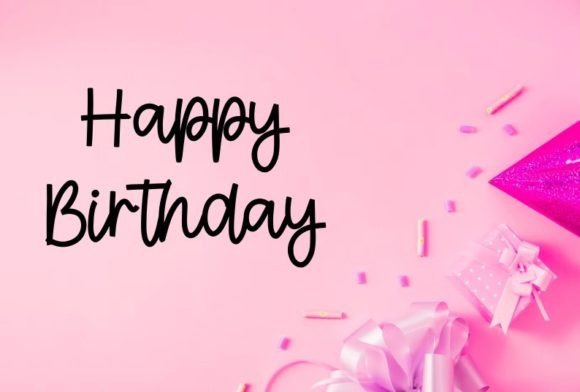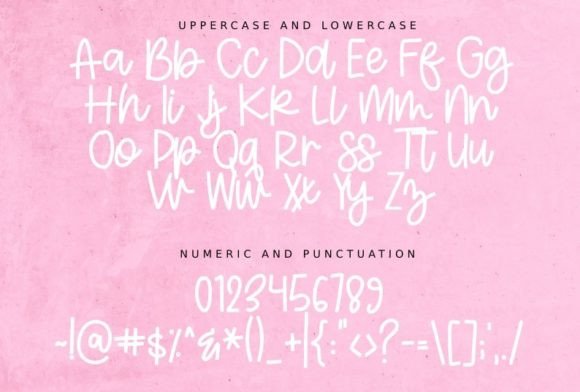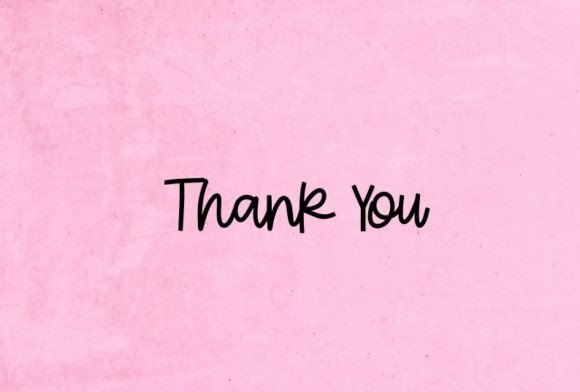
Introducing Farmhouse Display Font: Elevate Your Designs with Elegance
Are you on the hunt for a font that adds a touch of sophistication and charm to your projects? Look no further than Farmhouse Display Font, a stunning handwritten font that is sure to capture your heart. With its elegant touch and timeless style, this font is perfect for designers and crafters looking to create spectacular designs that stand out from the crowd.
The Beauty of Farmhouse Display Font
Farmhouse Display Font is a neat and beautiful handwritten font that boasts an incredibly distinct style. Its elegant touch is perfect for adding a touch of sophistication to a wide range of projects, from wedding invitations and branding materials to social media graphics and more. The font’s classic and timeless design ensures that it will never go out of style, making it a valuable addition to any designer’s toolkit.
What Makes Farmhouse Display Font So Special?
So, what sets Farmhouse Display Font apart from other fonts on the market? Here are just a few reasons why designers and crafters are falling in love with this beautiful font:
- Elegant and Refined: Farmhouse Display Font features an elegant and refined design that is perfect for creating sophisticated and eye-catching designs.
- Timeless Style: The font’s classic design ensures that it will never go out of style, making it a valuable investment for designers and crafters.
- Versatile: Farmhouse Display Font is incredibly versatile, making it perfect for use in a wide range of projects, from wedding invitations and branding materials to social media graphics and more.
- Easy to Read: Despite its elegant design, Farmhouse Display Font is incredibly easy to read, making it perfect for use in both digital and print materials.
How to Use Farmhouse Display Font in Your Designs
Ready to fall in love with Farmhouse Display Font? Here are a few ways you can use this beautiful font in your designs:
- Wedding Invitations: Add a touch of elegance to your wedding invitations with Farmhouse Display Font. Perfect for creating beautiful and sophisticated wedding stationery.
- Branding Materials: Use Farmhouse Display Font to create stunning branding materials, such as logos, business cards, and letterheads.
- Social Media Graphics: Add a touch of sophistication to your social media graphics with Farmhouse Display Font. Perfect for creating eye-catching Facebook and Instagram posts.
- DIY Projects: Farmhouse Display Font is also perfect for use in DIY projects, such as crafting and scrapbooking.
Tips for Getting the Most Out of Farmhouse Display Font
Here are a few tips for getting the most out of Farmhouse Display Font:
- Experiment with Different Sizes: Farmhouse Display Font looks great in a variety of sizes, so don’t be afraid to experiment to find the perfect size for your project.
- Pair with Other Fonts: Farmhouse Display Font pairs beautifully with other fonts, so try pairing it with a sans-serif font for a stunning contrast.
- Use in Combination with Images: Farmhouse Display Font looks great in combination with images, so try using it to add a touch of elegance to your photos and illustrations.